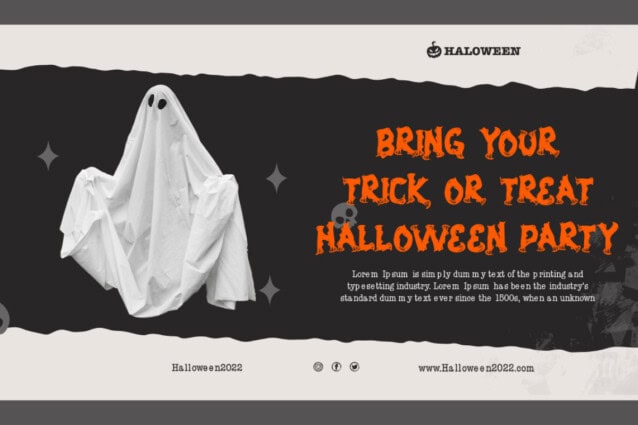
Mati Rasa Font
Mati Rasa Font is a horror display font that combines the power of negative energy with the brutal intensity of brush strokes. This font is the ultimate embodiment of metal brutalism that is boldly designed to make a fierce statement and personality. Perfect for banners, blogs, brand logo, brochure, business card, flyer, headline, invitations, poster, printed materials, signboard, stationery, title, website, and others.
nihstudio